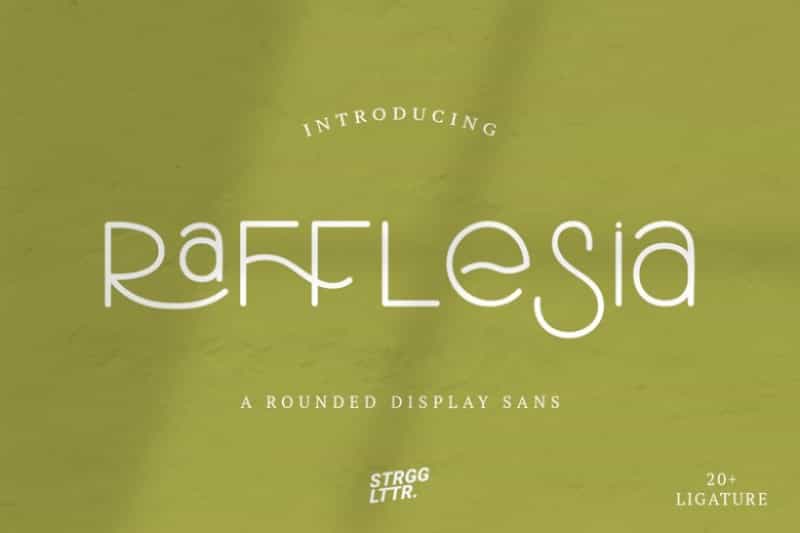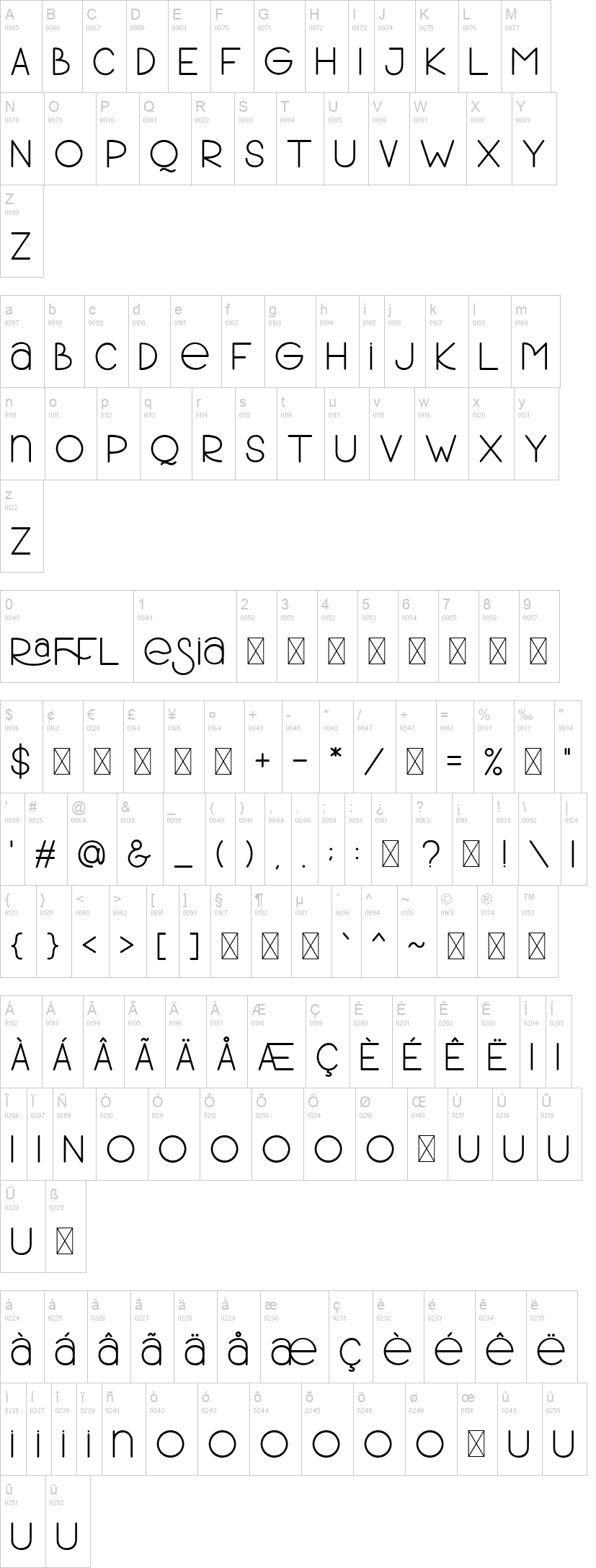
Rafflesia Rounded Display Sans Font is one of the modern font that created by Rinto Hardianto to use in any type of projects and promotional materials. Rafflesia has a balanced display with humorous ligatures for you to use, and this font is trendy, fresh and elegant for use in any type of media! Perfect for watermarks labels packages quotes branding special events and so on.